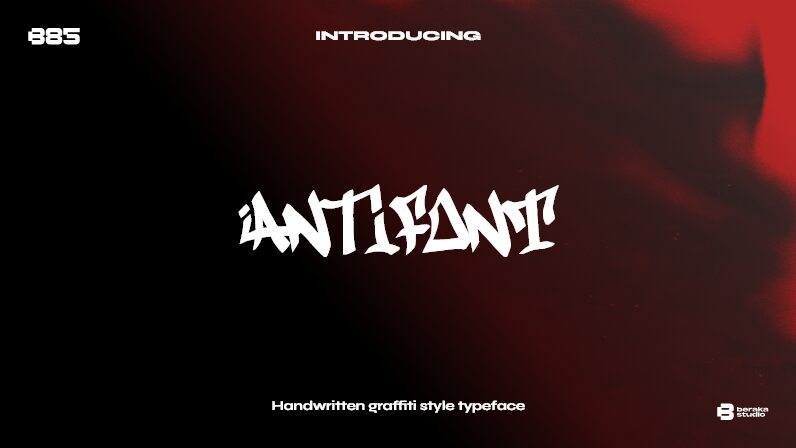
Antifont font by B85 is edgy, rebellious, and filled with that graffiti-inspired swagger. It’s expressive with an urban flair that catches everyone’s attention and never lets go. If you’re looking for a font that takes no prisoners – well, folks, you’ve found it here. So show the world your creative vision with Antifont.
Designers can pick up the free graffiti display font to use in posters and flyer designs for bands and concerts, magazines and cover art projects, CDs albums covers, video game interfaces, book covers inspired by gangs themes or even sneaker declinations such as custom shoe boxes or embroidered surfaces.